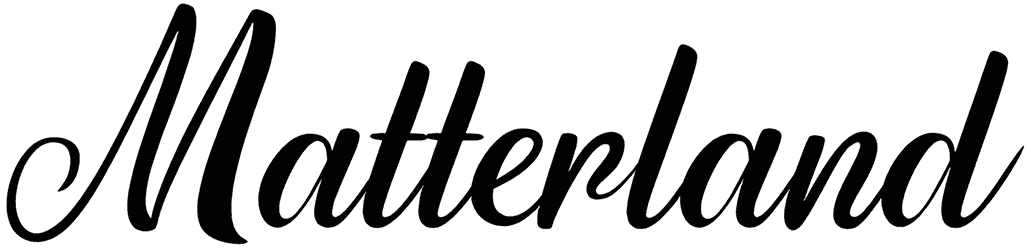
Matterland Font
Since the spirit of neutrality is significant in promoting any artwork of designers, script fonts are considered and warmly received, especially in projects that want to show empathy, art, and a feminine reflection.
Here, a calligraphy font named Matterland with A to Z alphabets stands chic to lunch up your wedding cards, posters, and others. Take advantage of this free opportunity and let the outcomes speak for themselves.